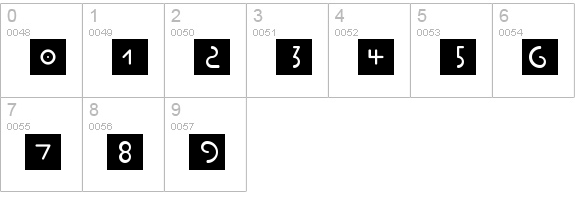
Stealth (Plain):001.001 Font Details
Stealth (Plain):001.001 font is a sleek and stylish typeface that exudes a sense of mystery and intrigue. With its clean lines and sharp edges, this font is perfect for adding a touch of sophistication to any design project. Whether you're designing a logo, creating a website, or crafting a poster, Stealth (Plain):001.001 font will make your text stand out. One of the best features of Stealth (Plain):001.001 font is that it is freely available to download at FontsMarket.com. This means that you can access this amazing font without having to spend a dime. With its versatility and high-quality design, Stealth (Plain):001.001 font is a valuable asset for any designer or creative professional. The popularity of Stealth (Plain):001.001 font is not surprising, considering its ability to convey a sense of elegance and modernity. Its minimalistic yet impactful style makes it suitable for a wide range of projects, from corporate branding to personal invitations. No matter the context, Stealth (Plain):001.001 font will elevate your design and leave a lasting impression on your audience. With its legible letterforms and balanced weight distribution, Stealth (Plain):001.001 font ensures that your message is clear and easy to read. Its consistent and uniform design makes it suitable for both large headlines and small body text. Whether you're designing for print or digital platforms, Stealth (Plain):001.001 font will deliver exceptional results every time. So why wait? Download Stealth (Plain):001.001 font for free at FontsMarket.com and unlock the potential of this remarkable typeface. With its timeless appeal and modern aesthetic, Stealth (Plain):001.001 font will undoubtedly become a valuable addition to your font collection. Don't miss out on this opportunity to enhance your designs with this versatile and visually striking font.